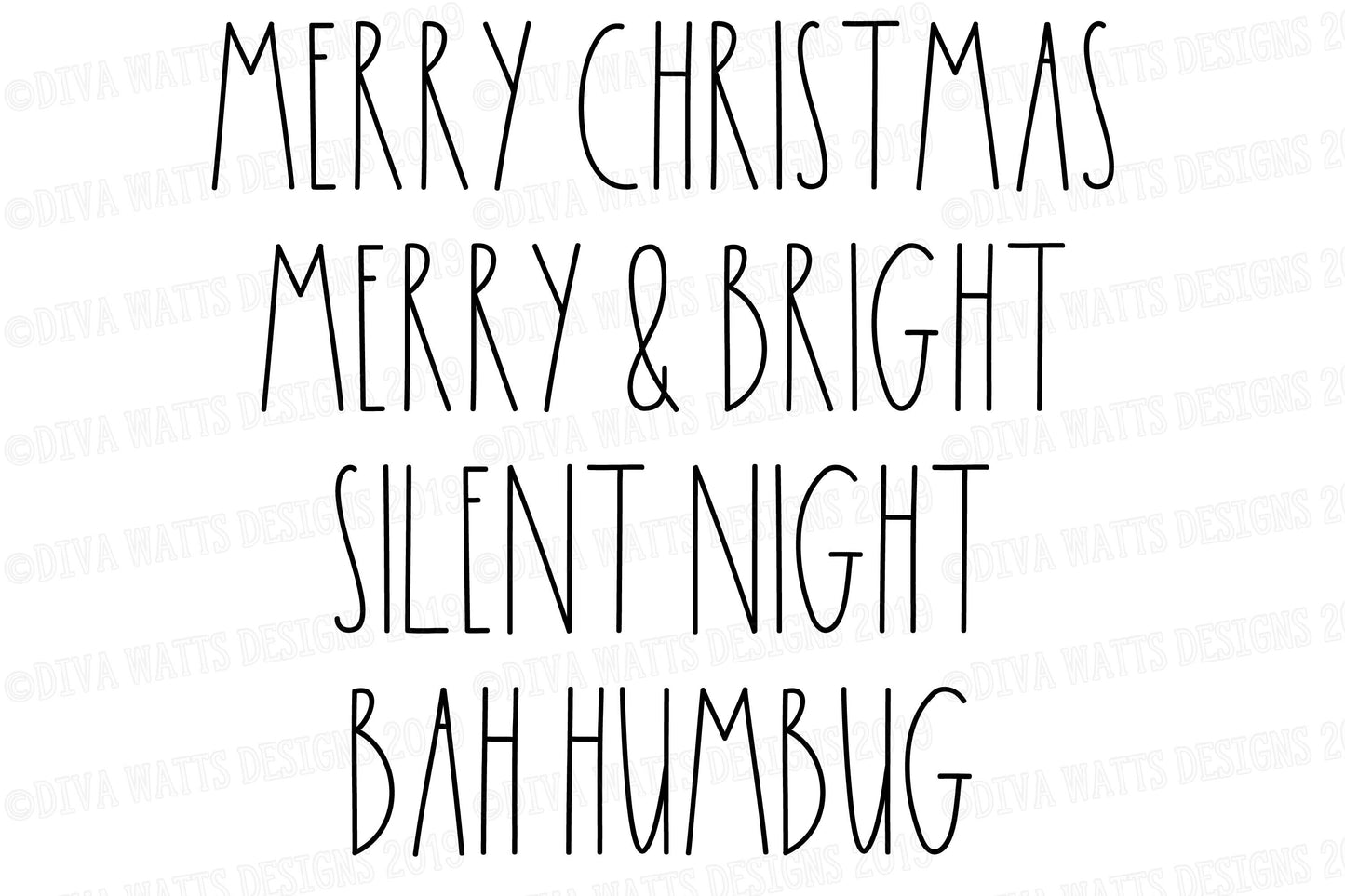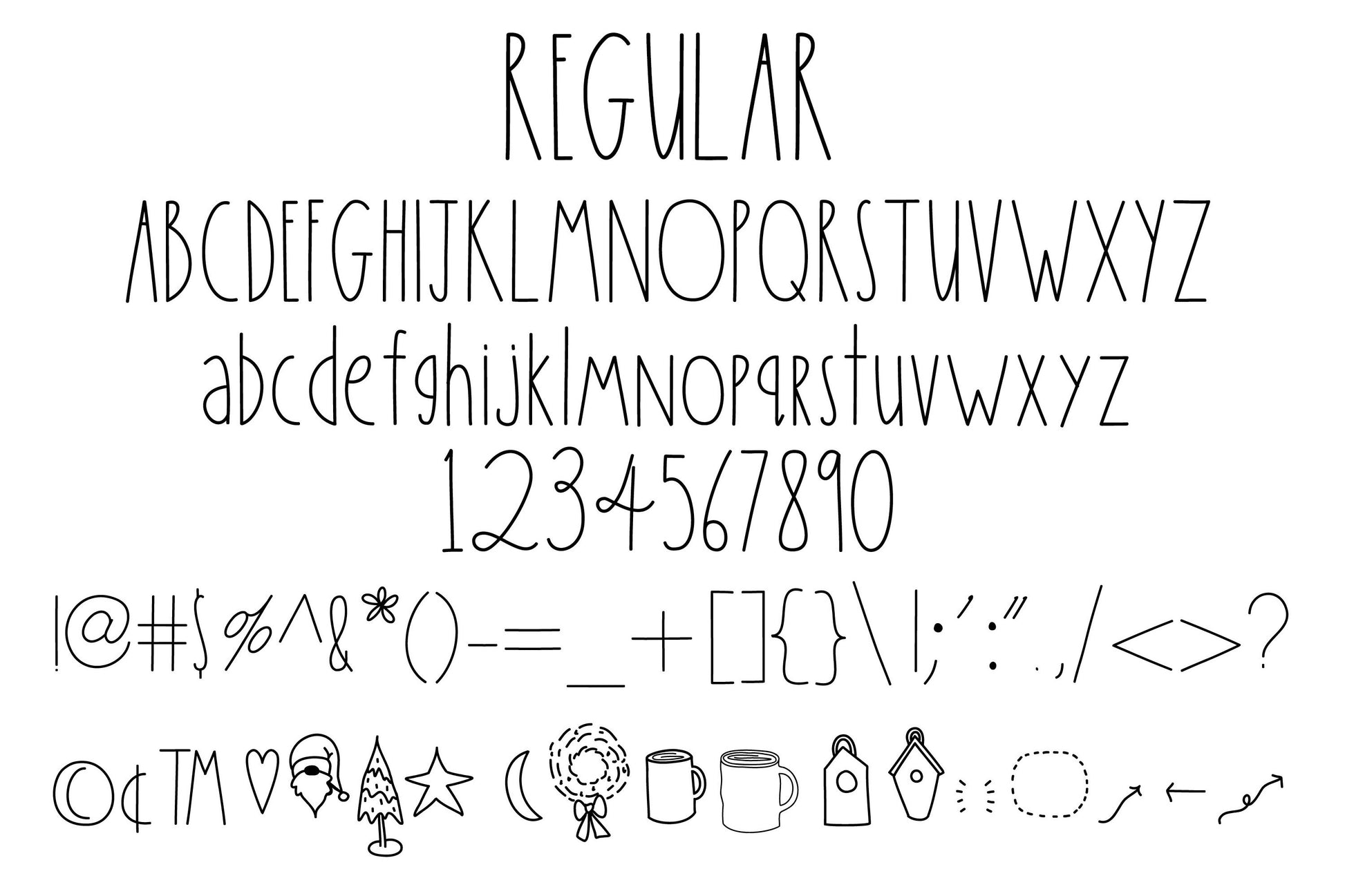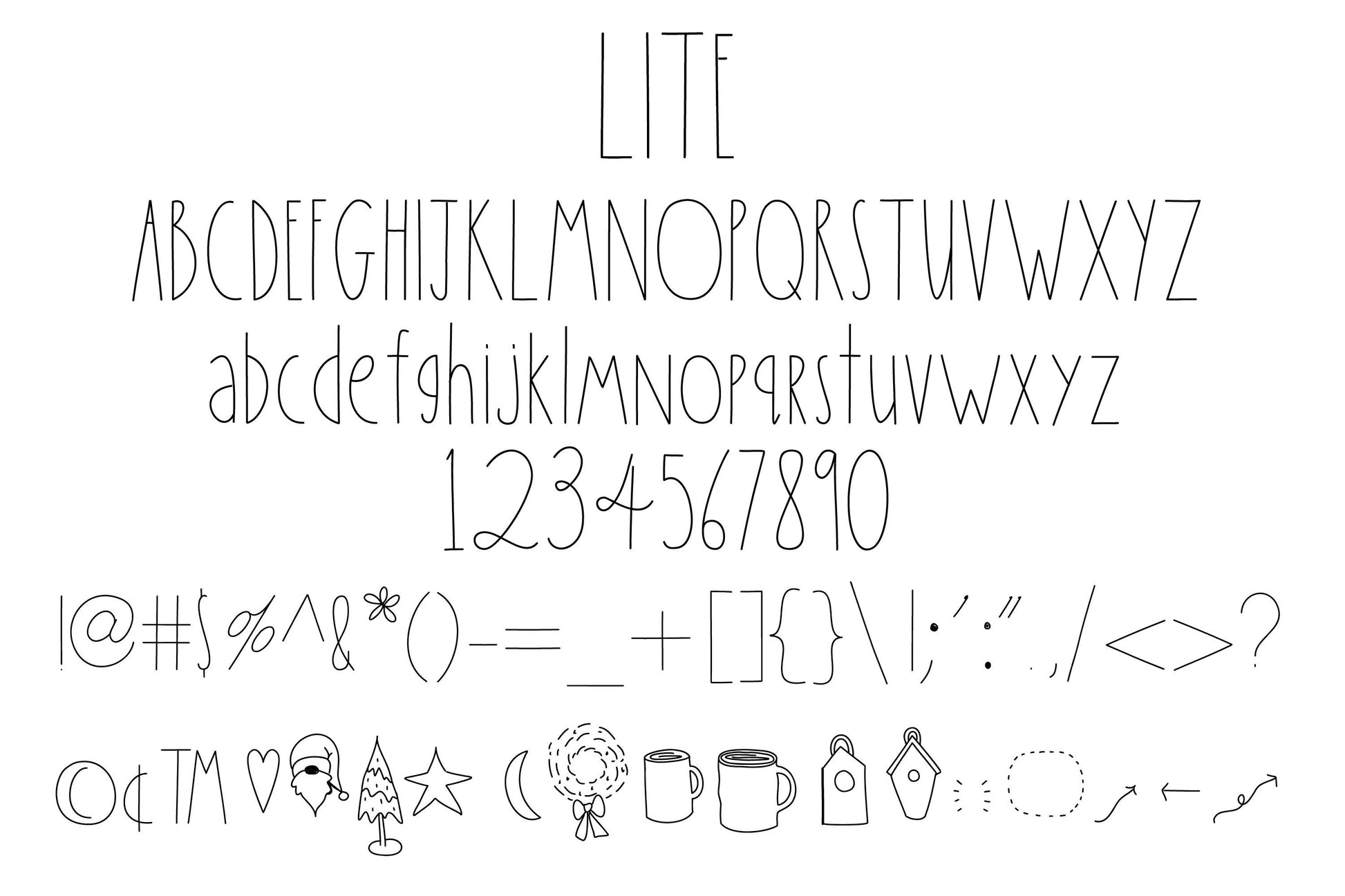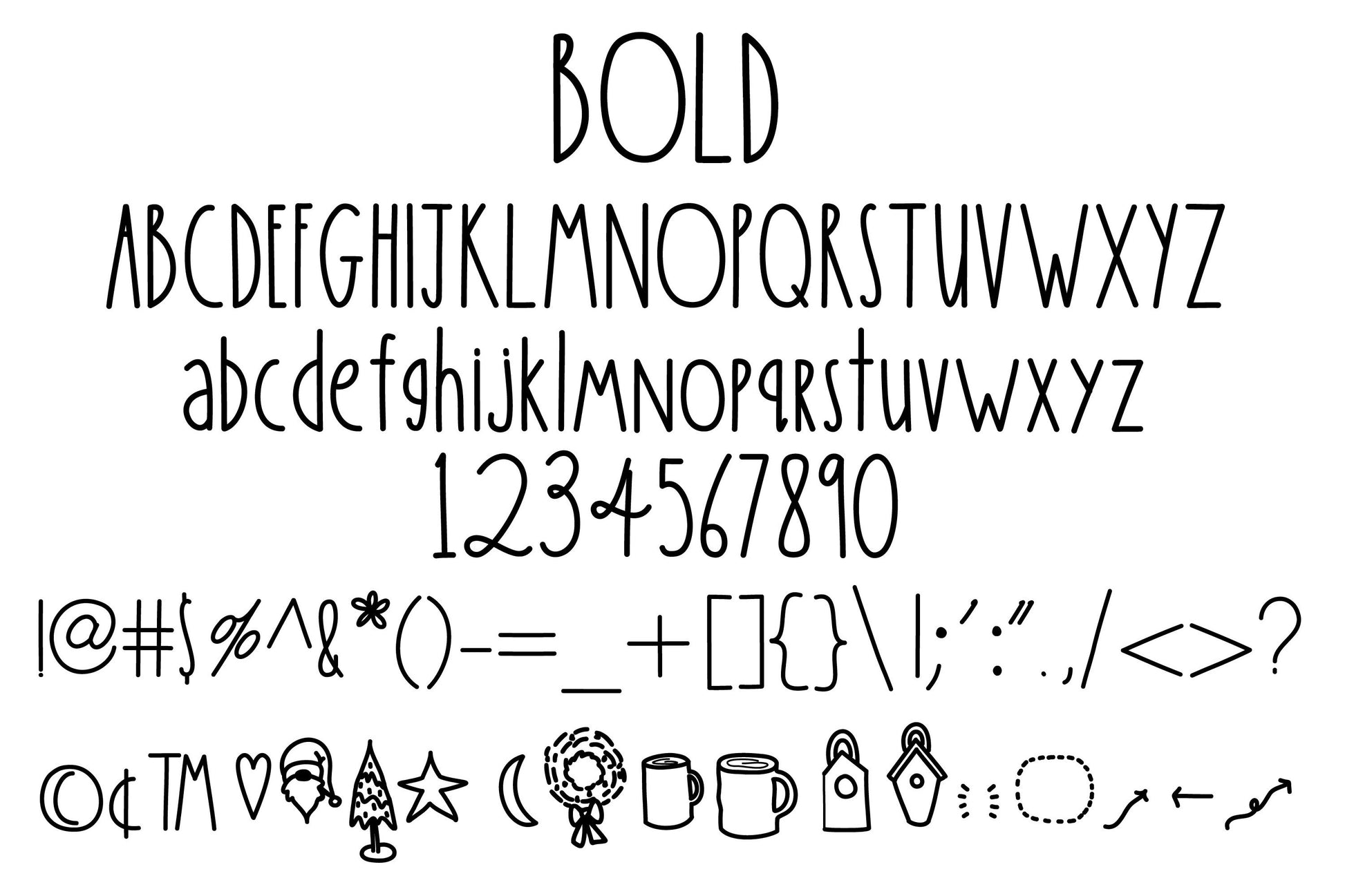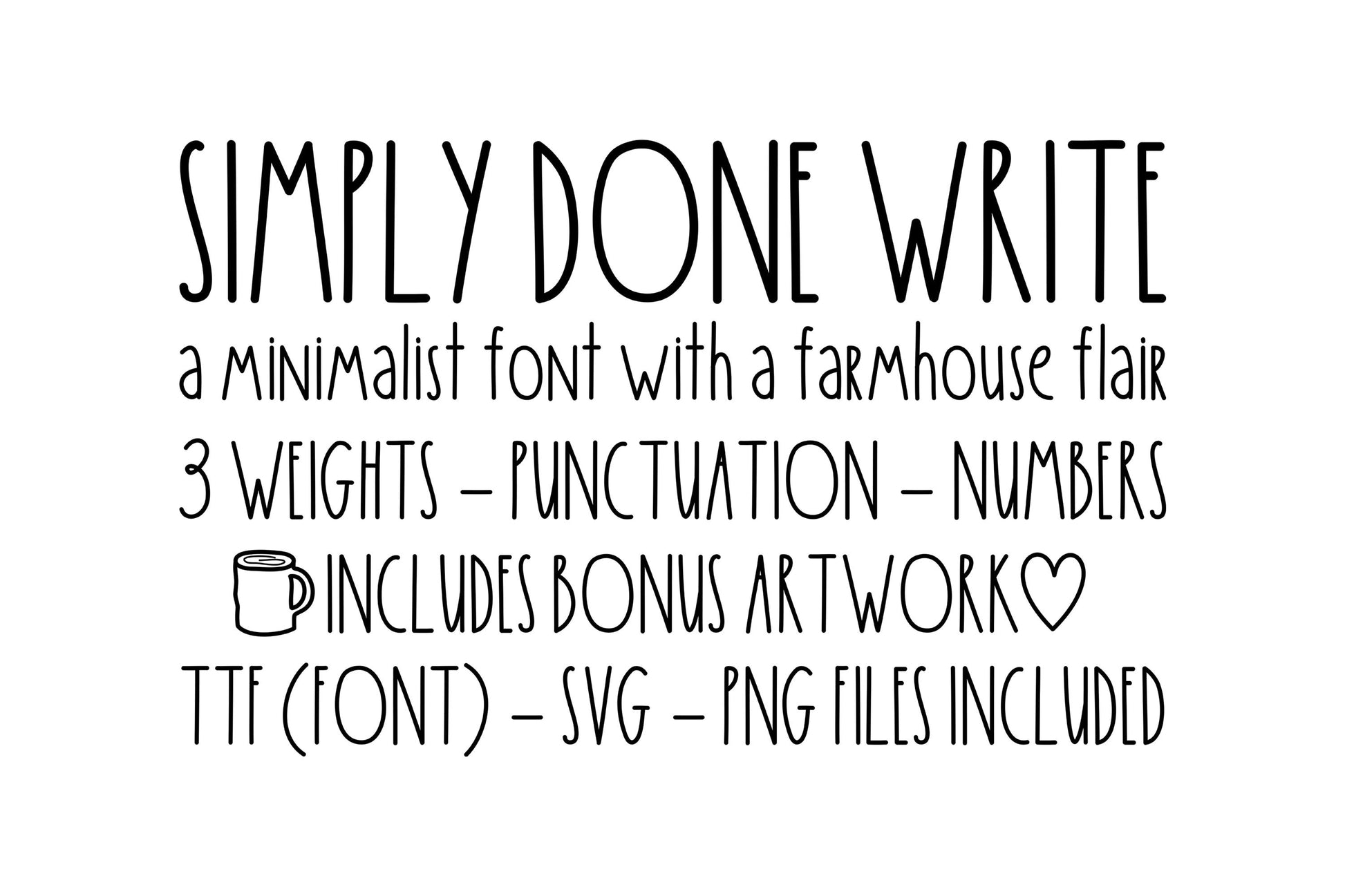
SIMPLY DONE WRITE
A minimalist font with a farmhouse flair!
Includes 3 weights: Lite, Regular and Bold
All fonts include uppercase, lowercase, numbers, punctuation and bonus dingbats.
Perfect for making decals, home decor, shirts and more.